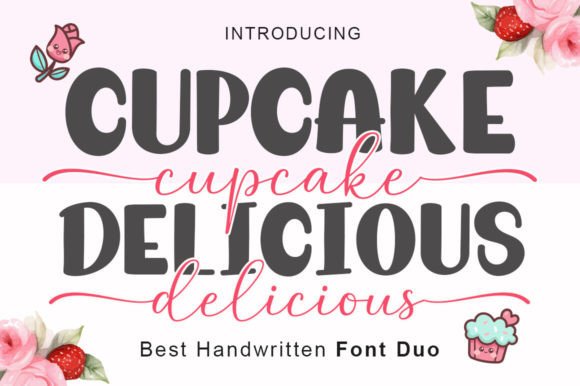
Cupcake Delicious Duo Font: The Ultimate Pairing for Your Creative Projects
In the world of typography, finding the perfect font duo can be a daunting task. However, if you’re looking for a stylish and smooth pairing that can elevate your creative projects, look no further than the Cupcake Delicious Duo font. This charming duo, consisting of a sans serif and script font, is suitable for a wide range of applications and is sure to add a romantic touch to your designs.
What is Cupcake Delicious Duo Font?
Cupcake Delicious Duo is a carefully crafted font duo that combines the simplicity of a sans serif font with the elegance of a script font. This versatile pairing is perfect for designers, crafters, and artists who want to add a touch of whimsy and sophistication to their work. The sans serif font provides a clean and modern base, while the script font adds a playful and romantic flair.
Key Features of Cupcake Delicious Duo Font
- PUA Coded: Cupcake Delicious Duo is PUA (Private Use Area) coded, which means that you can easily access all the glyphs and bindings. This feature makes it simple to use the font in various design software, including Adobe Illustrator and Canva.
- Sans Serif and Script Font: The duo font includes both a sans serif and script font, providing you with two unique styles to choose from. This allows you to mix and match the fonts to create visually appealing combinations.
- Romantic Touch: The Cupcake Delicious Duo font is designed to add a romantic touch to your designs. The script font features flowing curves and delicate lines, making it perfect for creating beautiful wedding invitations, greeting cards, and other special occasion designs.
- Wide Range of Applications: This font duo is suitable for a wide range of applications, including:
- Greeting cards and invitations
- Headlines and titles
- Branding and packaging
- Social media graphics
- Blog and website design
Benefits of Using Cupcake Delicious Duo Font
Using the Cupcake Delicious Duo font in your designs offers several benefits, including:
- Unique and Eye-Catching Designs: The Cupcake Delicious Duo font allows you to create unique and eye-catching designs that stand out from the crowd. The combination of the sans serif and script font creates a visually appealing contrast that grabs attention.
- Time-Saving: With the Cupcake Delicious Duo font, you can create a wide range of designs without having to switch between multiple fonts. This saves you time and effort, allowing you to focus on other aspects of your design.
- Consistency: Using a font duo that is specifically designed to work together ensures consistency in your designs. The Cupcake Delicious Duo font provides a cohesive look that ties your designs together.
Tips for Using Cupcake Delicious Duo Font
Here are some tips for using the Cupcake Delicious Duo font effectively:
- Mix and Match: Experiment with different combinations of the sans serif and script font to find the perfect pairing for your design.
- Use for Headlines and Titles: The Cupcake Delicious Duo font is perfect for headlines and titles. Use the script font for main titles and the sans serif font for subtitles or supporting text.
- Add Decorative Elements: Use the glyphs and bindings available in the PUA coded font to add decorative elements to your design. This can include flourishes, swashes, and other embellishments.
In conclusion, the Cupcake Delicious Duo font is a versatile and stylish font duo that can elevate your creative projects. With its sans serif and script font pairing, PUA coding, and romantic touch, this font duo is perfect for a wide range of applications. By following the tips outlined above, you can create unique and eye-catching designs that showcase your creativity and style.